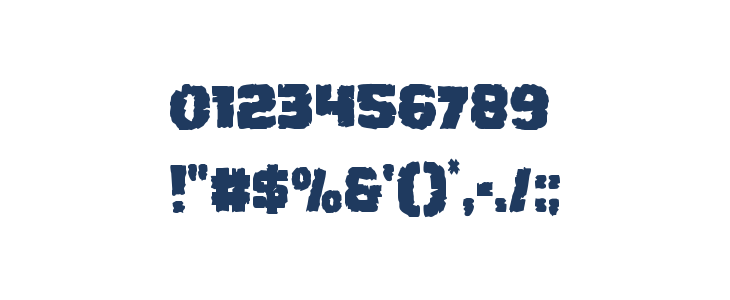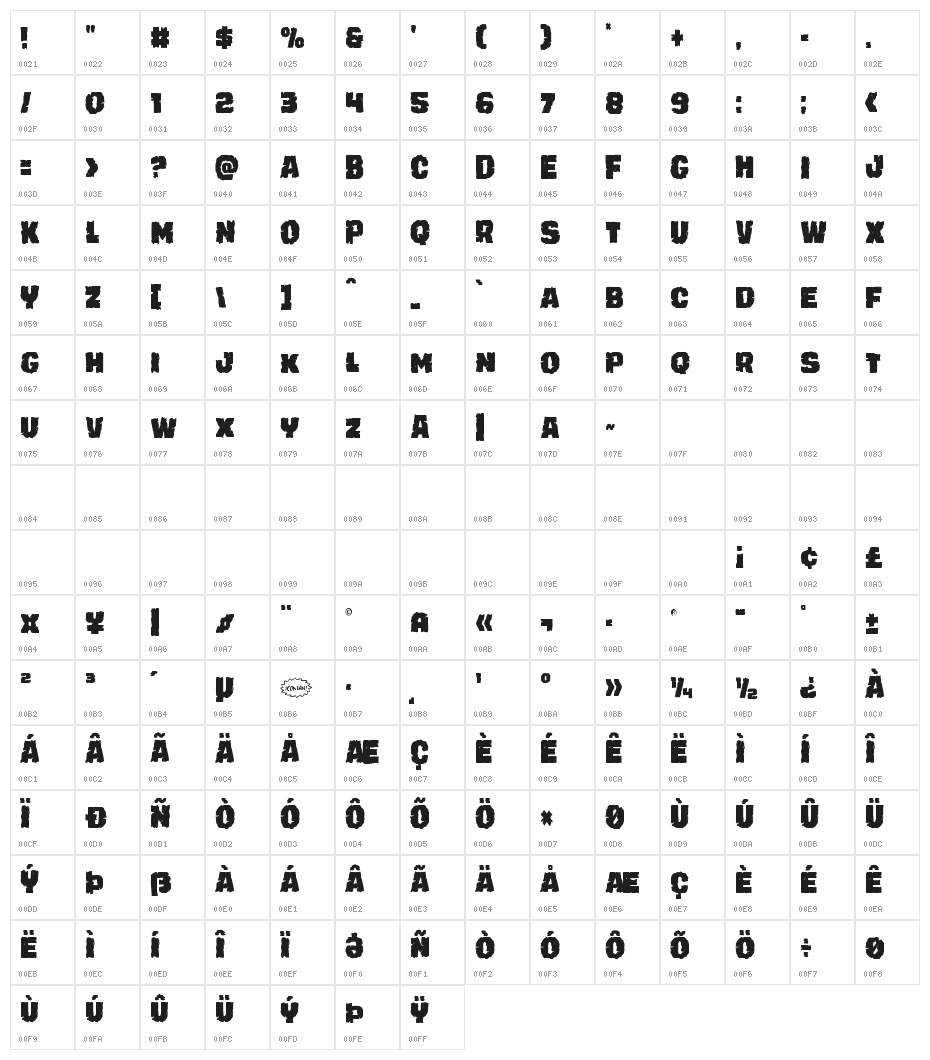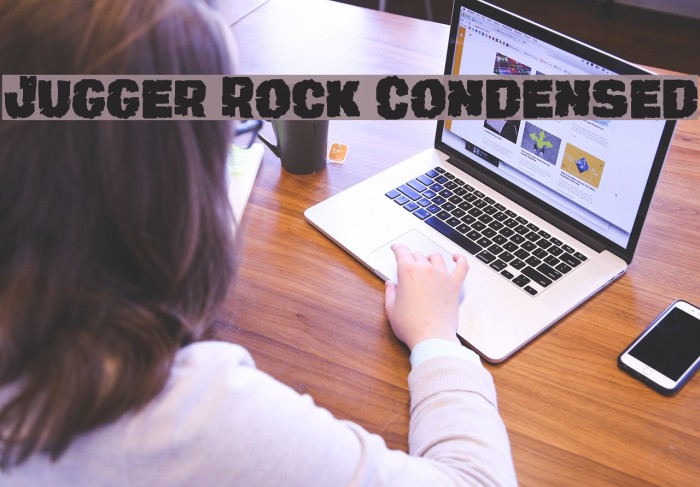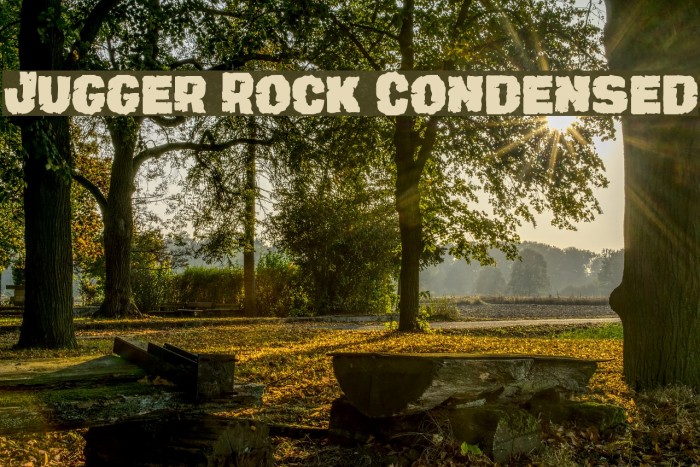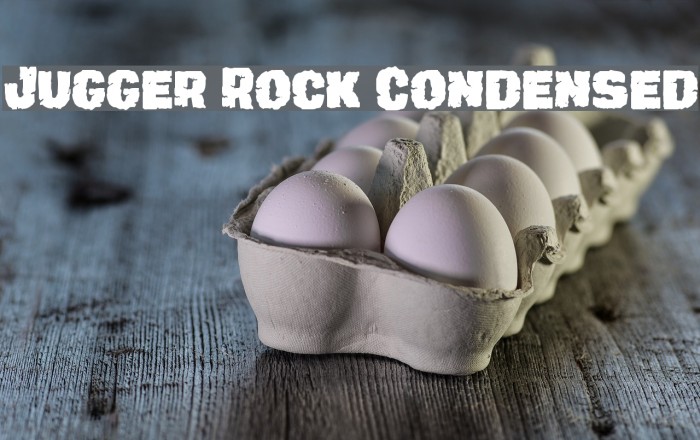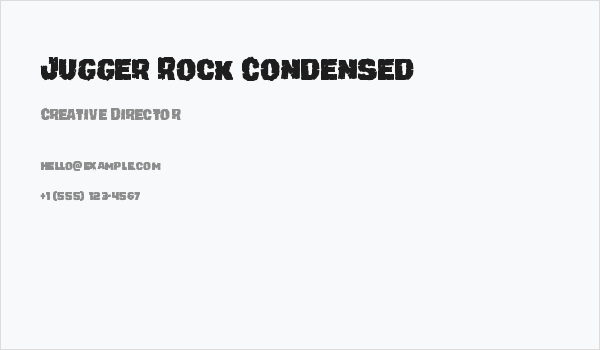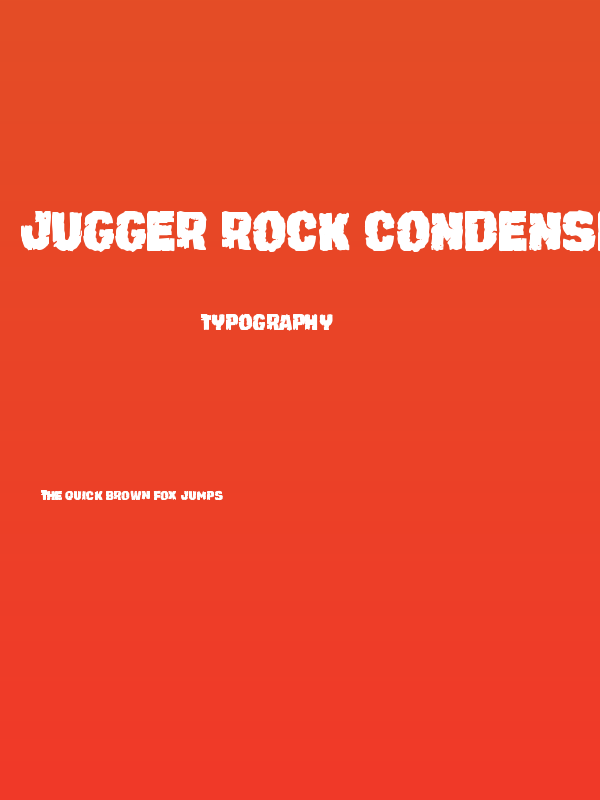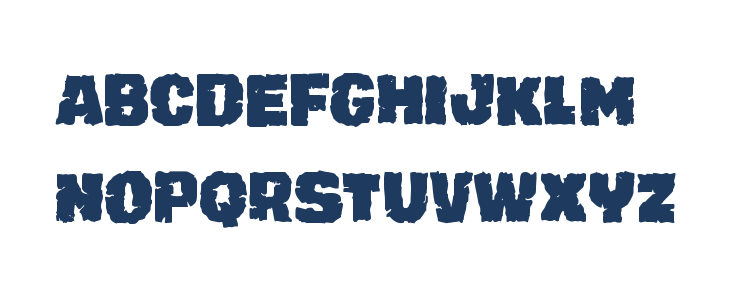
Jugger Rock Condensed Font
Jugger Rock Condensed Description
This font features a bold, rugged design with a distressed texture that gives it a rock-like appearance. The characters are condensed, creating a compact and impactful look. Each letter has a rough, uneven edge, adding to its gritty and dynamic style. The uppercase and lowercase letters maintain a consistent weight, while the numbers and special characters follow the same bold and textured theme. This font's unique style makes it stand out, perfect for projects that require a strong and edgy aesthetic.
Proposed ProjectsIdeal for music album covers, event posters, branding for extreme sports, or any project needing a bold, edgy look.